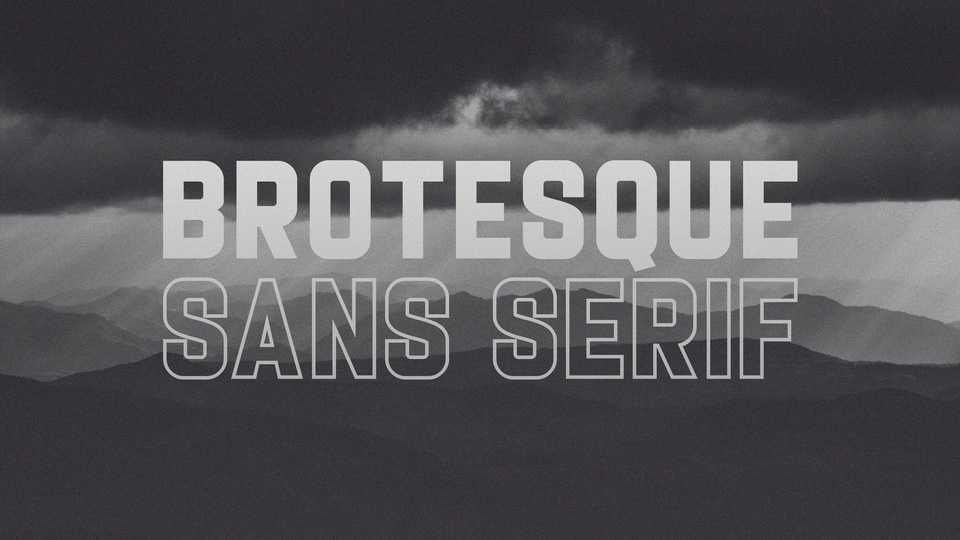
Download Brotesque font, a display typeface that looks modern and powerful. Brotesque is inspired by the old writing style that has beautiful shapes, here we add a modern feel to every letter, number and function.